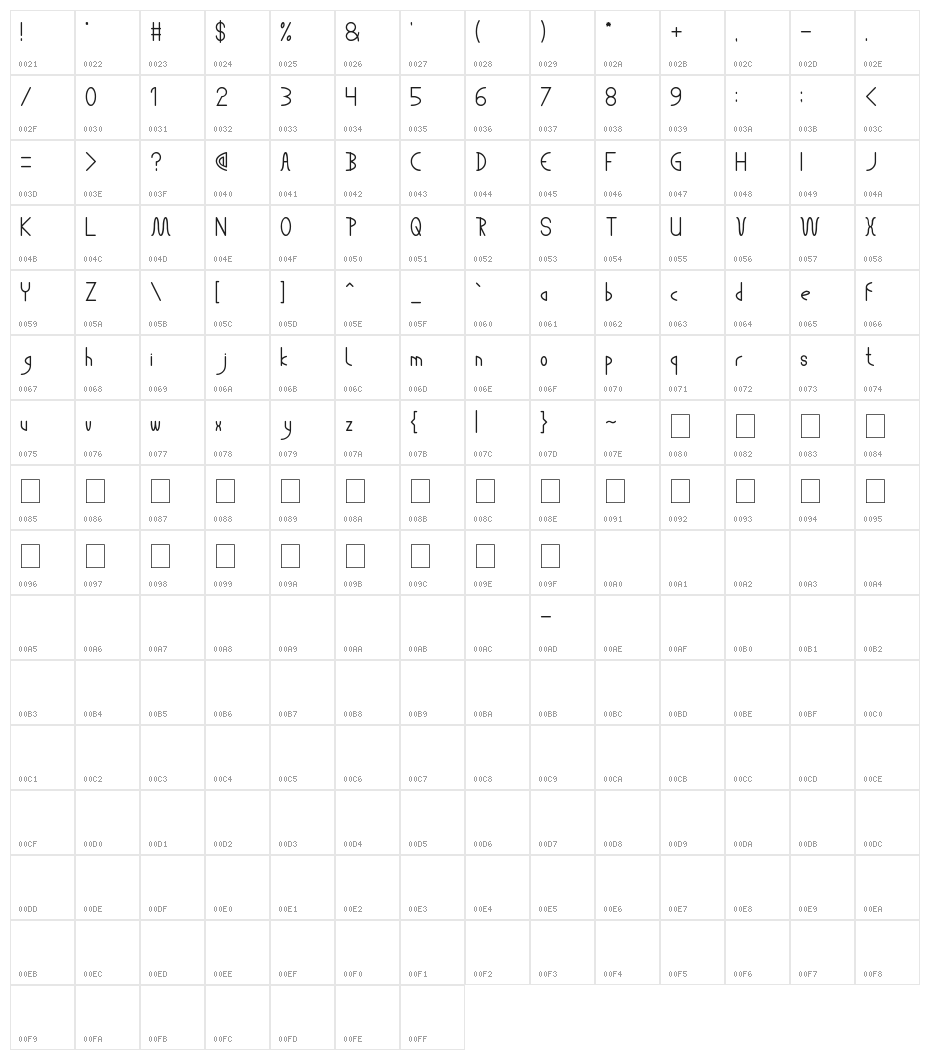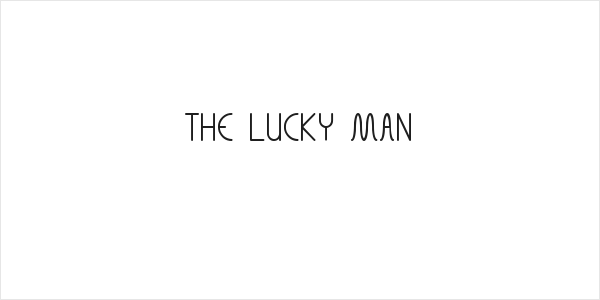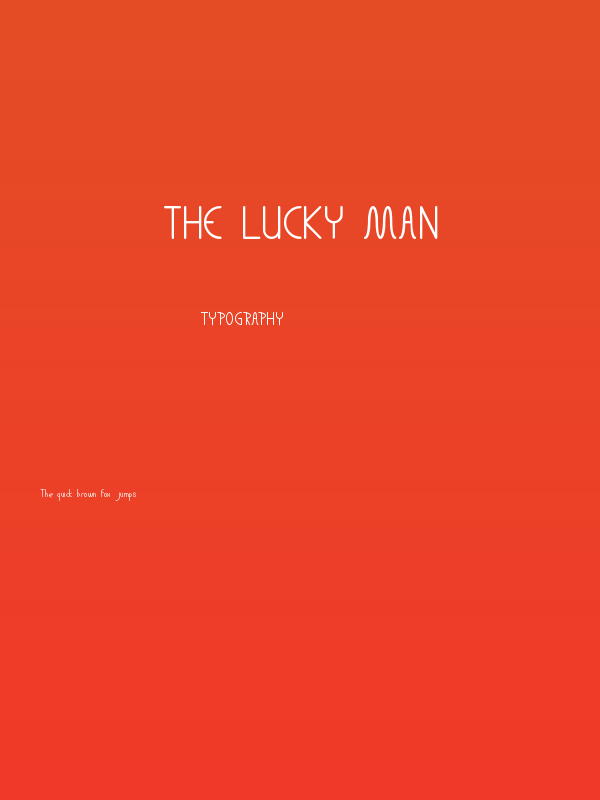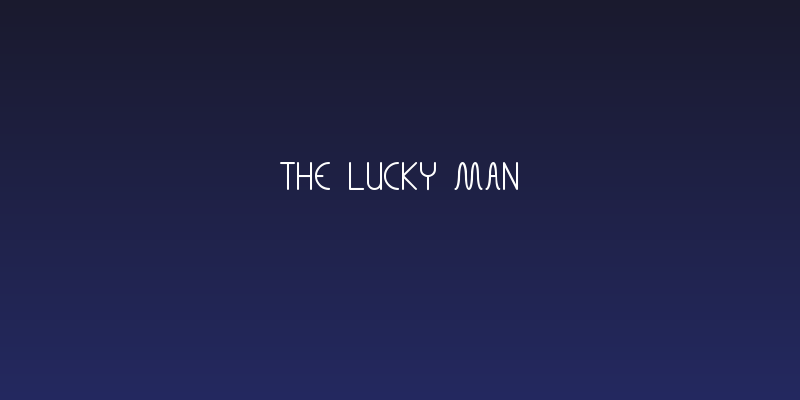
THE LUCKY MAN Font
THE LUCKY MAN Description
This font features a playful and whimsical design, characterized by its wavy and irregular strokes that give it a unique, hand-drawn appearance. The uppercase letters are tall and slightly narrow, with a distinctive flow that adds a sense of movement. The lowercase letters maintain a consistent style, with rounded edges and a casual feel. Numbers and special characters are crafted to match the overall aesthetic, ensuring a cohesive look across all text. This font's quirky style makes it ideal for projects that require a fun and informal touch.
| Overall Style | Whimsical |
| Proposed Projects | Ideal for children's books, greeting cards, playful branding, and creative posters. |